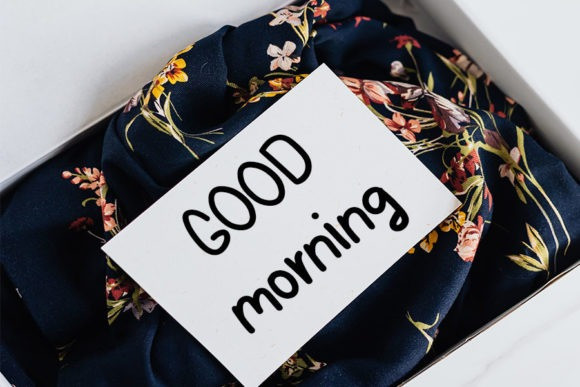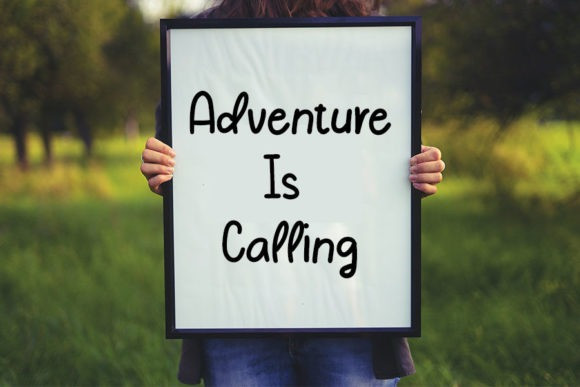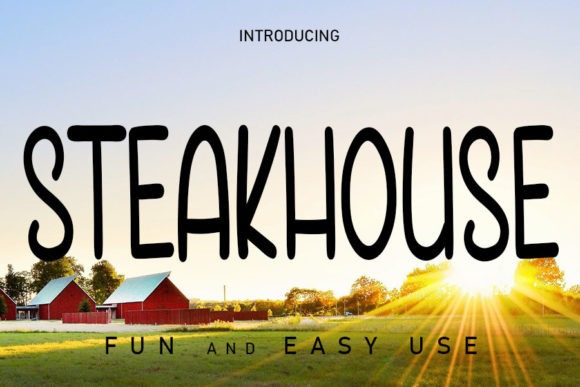
Steakhouse Font
SteakHouse Font is a simple and clean handwritten font, masterfully designed to become a true favorite. It maintains its cool calligraphic influences while feeling contemporary and fresh. Fall in love with it and bring your projects to the highest levels!